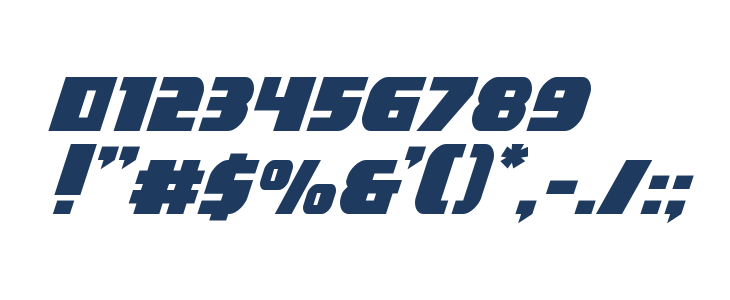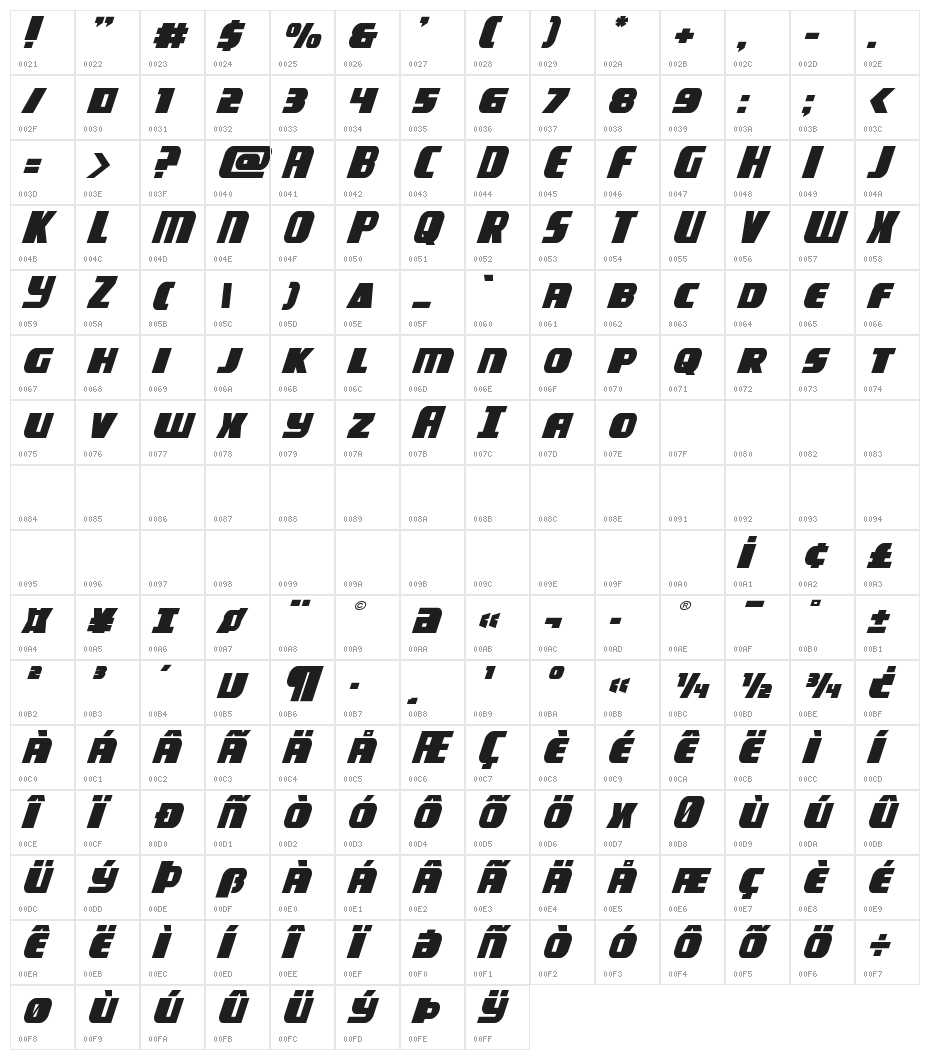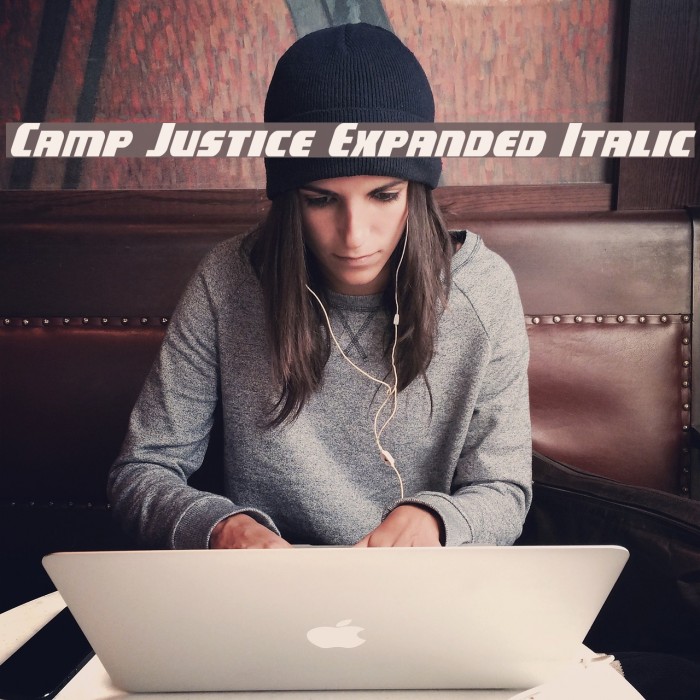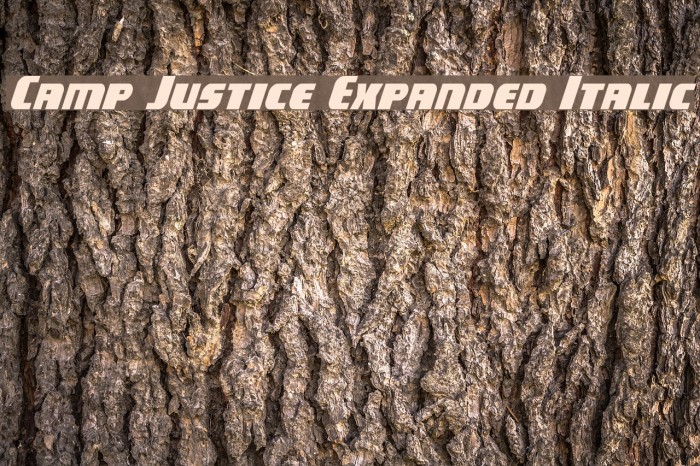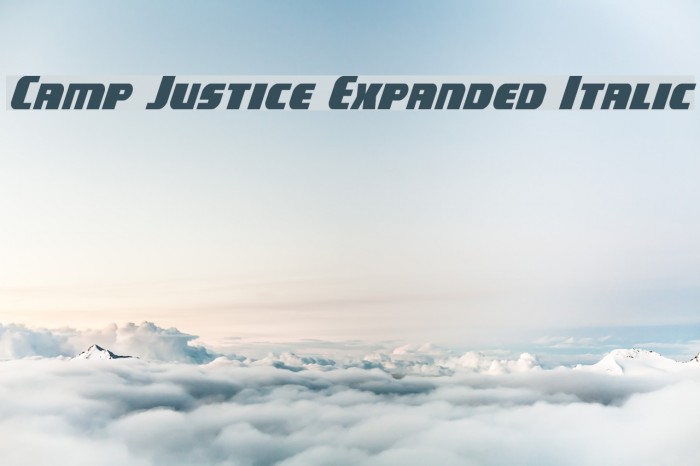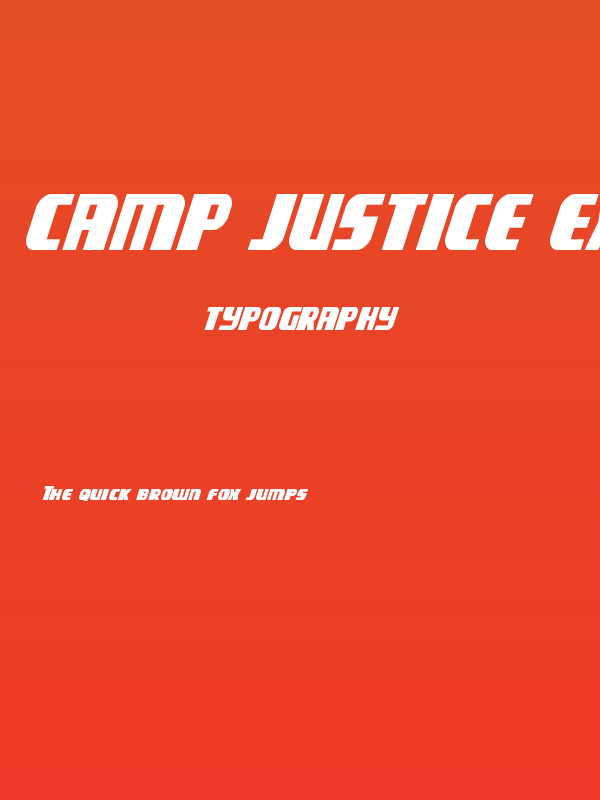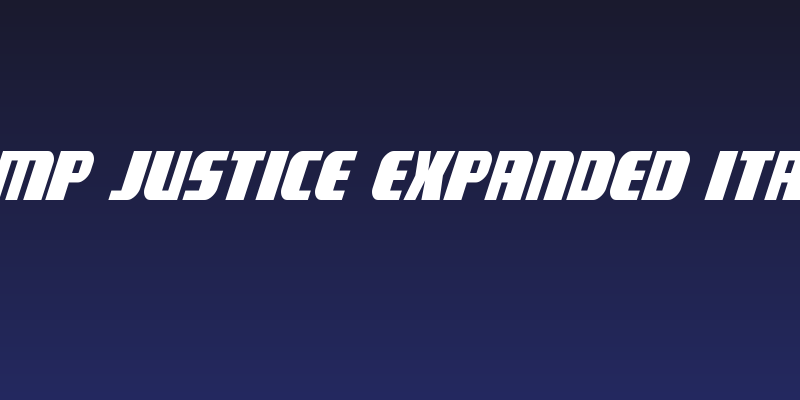
Camp Justice Expanded Italic Font
Camp Justice Expanded Italic Description
This font features a bold and dynamic style with a distinctly modern flair. The characters are expanded and italicized, giving them a sense of movement and energy. The strokes are thick and consistent, providing a strong visual impact. The angular design of the letters adds a futuristic touch, making it suitable for projects that require a contemporary and assertive look. The spacing between characters is tight, enhancing the compact and cohesive appearance of the text. This font is ideal for making a statement, whether in headlines, logos, or branding materials.
| Proposed Projects | Ideal for headlines, logos, branding, and any project needing a strong, modern aesthetic. |